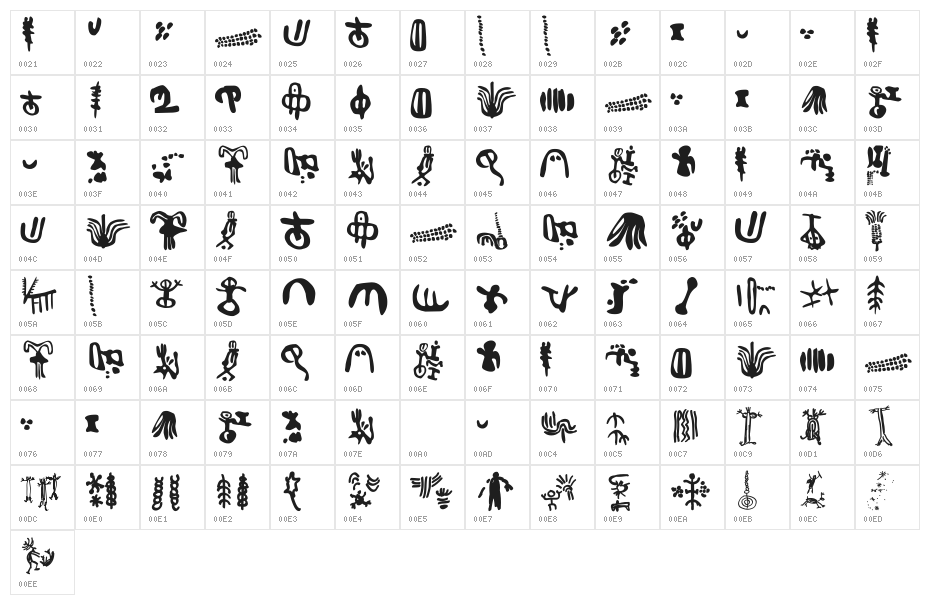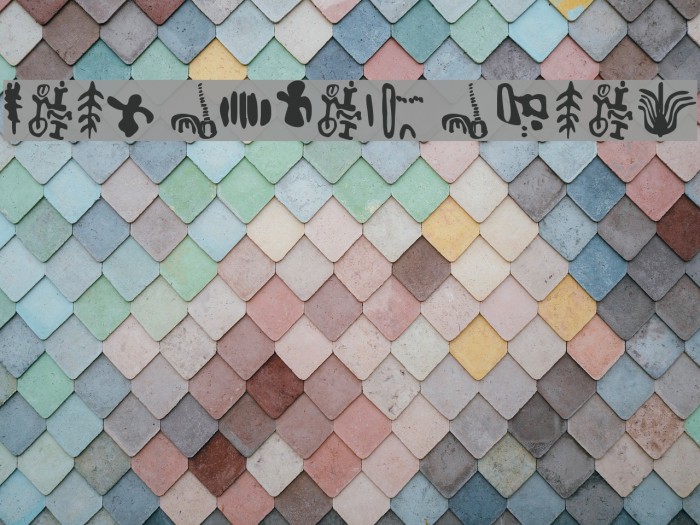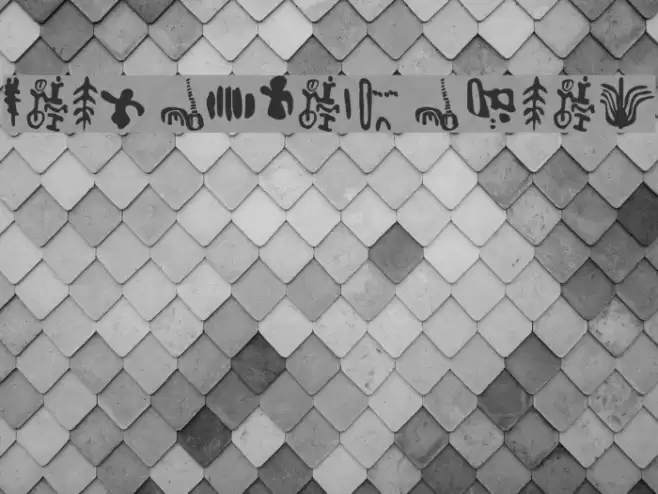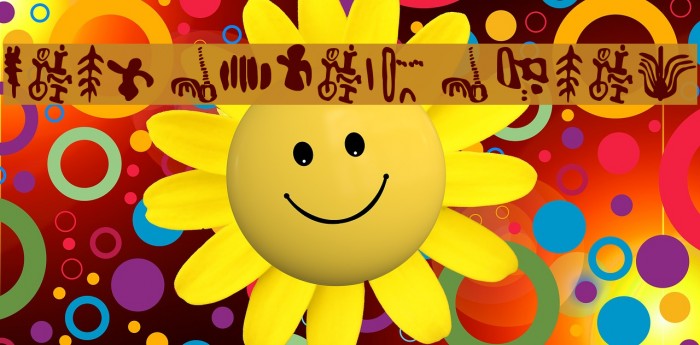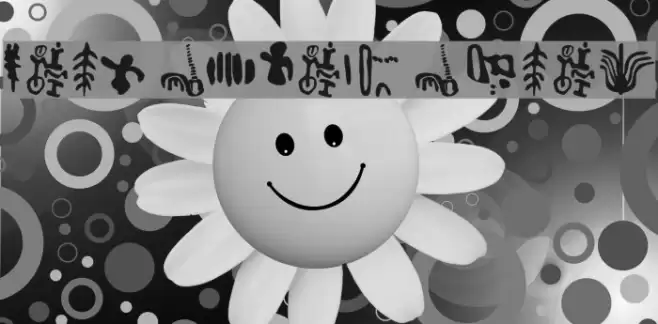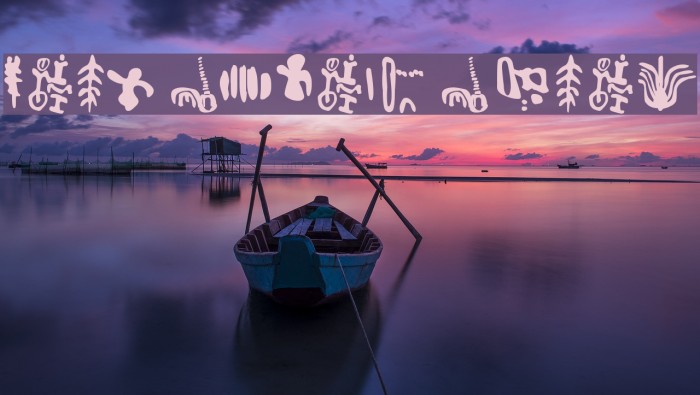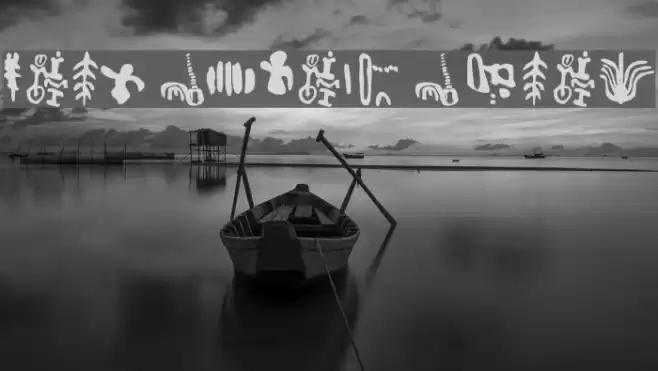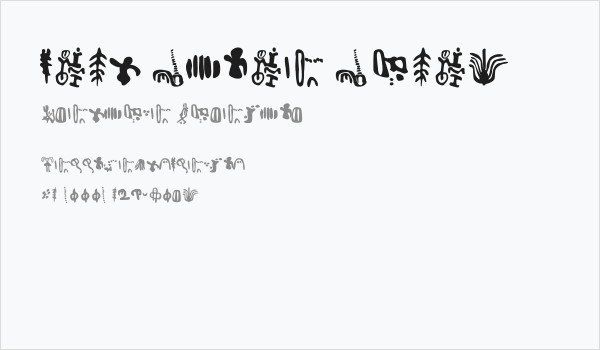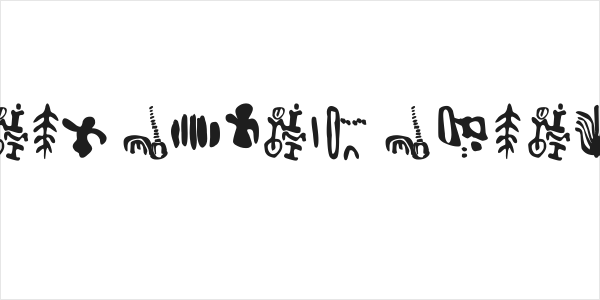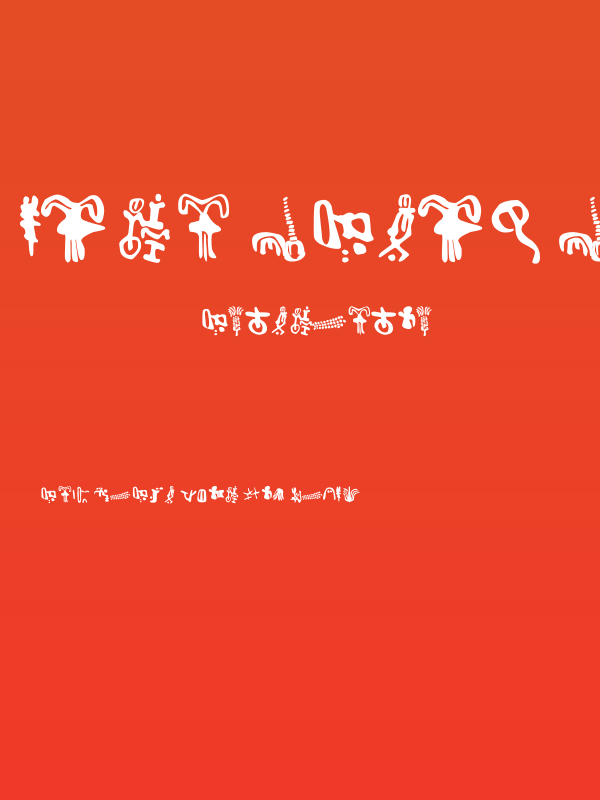
Inga Stone Signs Font
Inga Stone Signs Description
Highly decorative and pictographic set of glyphs inspired by ancient or indigenous stone carvings, featuring organic, abstract, and symbolic shapes with varied stroke thickness and intricate dot patterns.
| Overall Style | Decorative, Ancient, Pictographic |
| Use Case | Display, Art, Themed graphics, Educational visuals |
| Proposed Projects | Historical recreations, educational materials, museum displays, themed posters, artistic projects. |